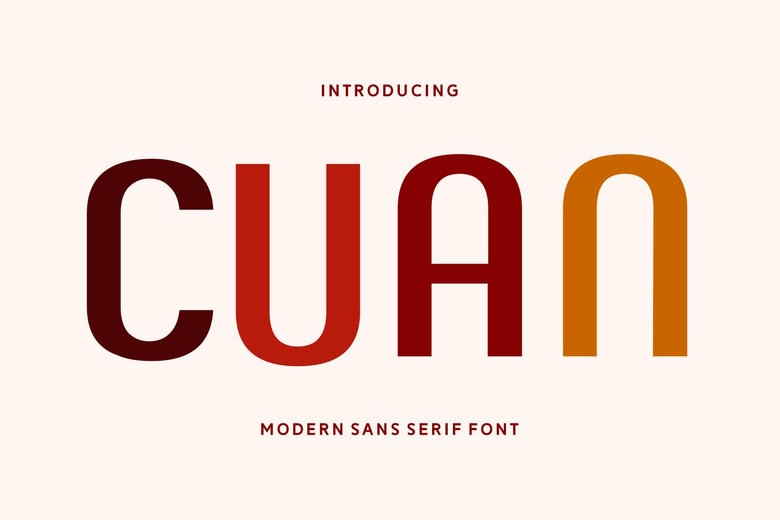
Cuan Font
Cuan is a bold sans serif font. This font has clean lines and modern appeal that is bound to turn some heads and impress them. It can be associated with a set of projects that can be extremely huge. It will suit logos, shirts, branding, packaging, quotes, social media, crafts and stickers etc.
Cuan Sans Serif Font